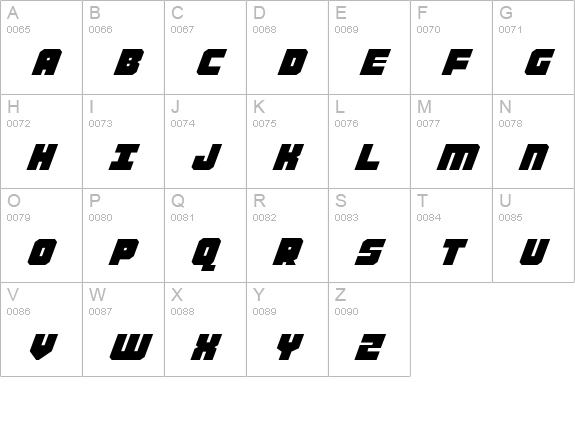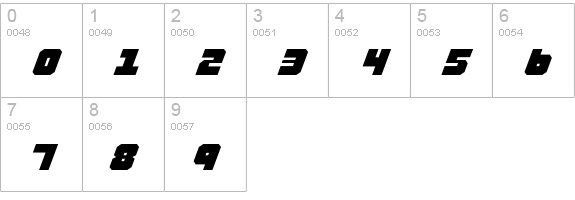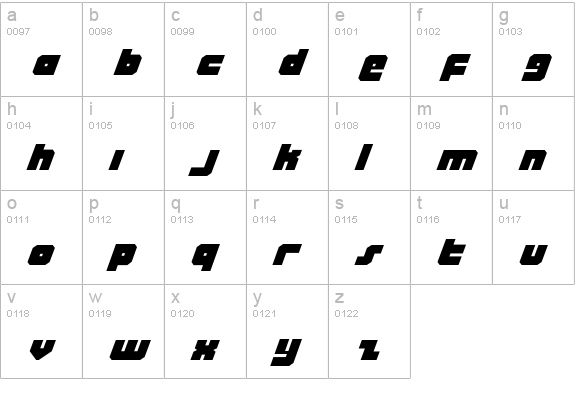
Alpha Taurus Expanded Italic Font Details
Alpha Taurus Expanded Italic is a distinctive, extended-width, italic variant in the Alpha typeface family \xE2\x80\x94 well suited to design and typography projects.
Introducing Alpha Taurus Expanded Italic font, a sleek and stylish typeface that exudes modern sophistication. The elongated letterforms of this font add a sense of elegance and flair to any design project, making it perfect for creating eye-catching headlines, posters, and branding materials. What sets Alpha Taurus Expanded Italic apart is its unique blend of sharp angles and curved edges, giving it a dynamic and contemporary look. The italicized style adds a touch of drama and emphasis, making your text stand out on the page. Best of all, Alpha Taurus Expanded Italic is available for free download at FontsMarket.com. This means you can easily access this premium font without any cost, allowing you to elevate your designs without breaking the bank. Don't miss out on this opportunity to enhance your creative projects with the striking Alpha Taurus Expanded Italic font today!